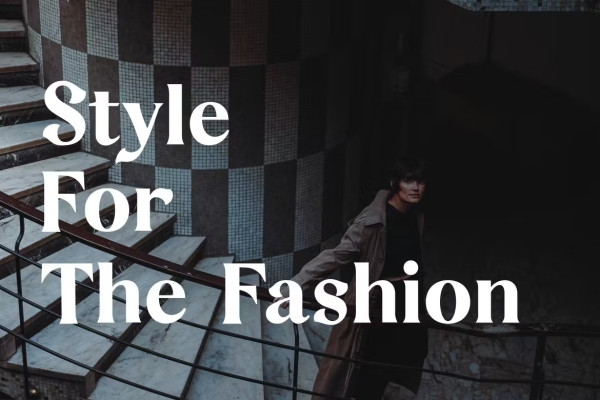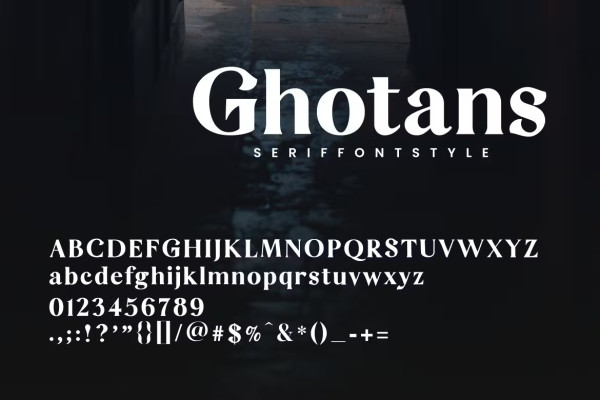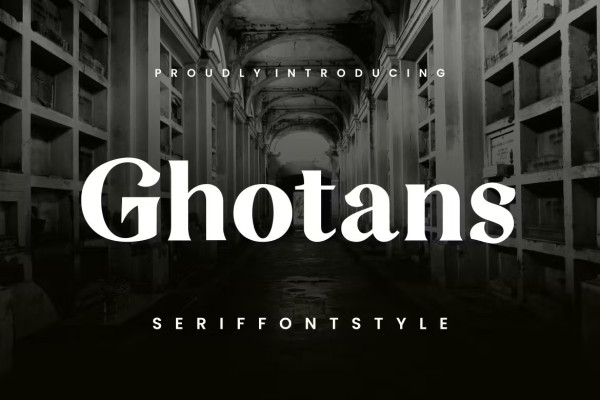
Ghotans Font
Ghotans Font, a simple and serif font. So perfect for you who needs a typeface for logo designs, magazine, social media, brochure, and many more.